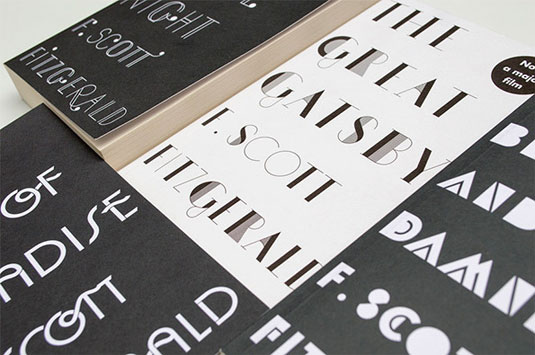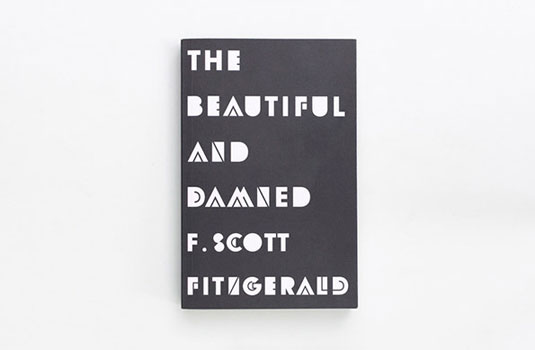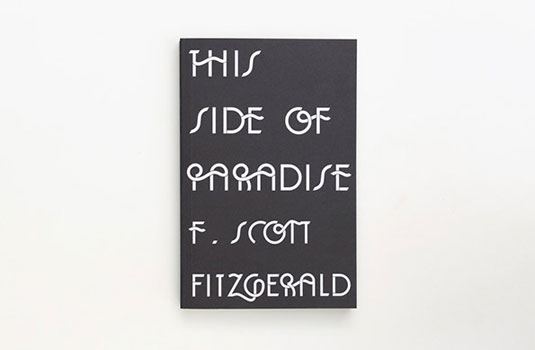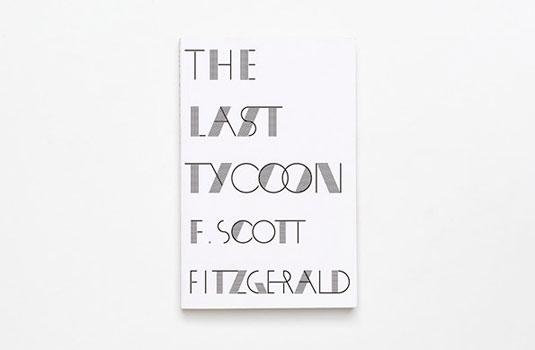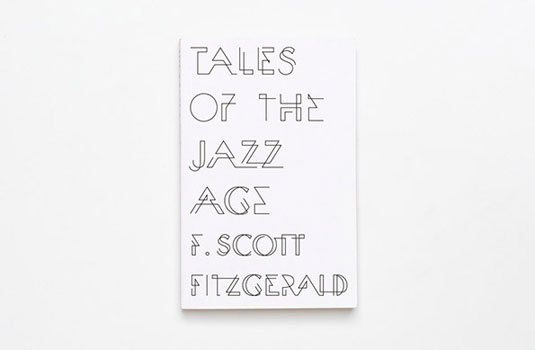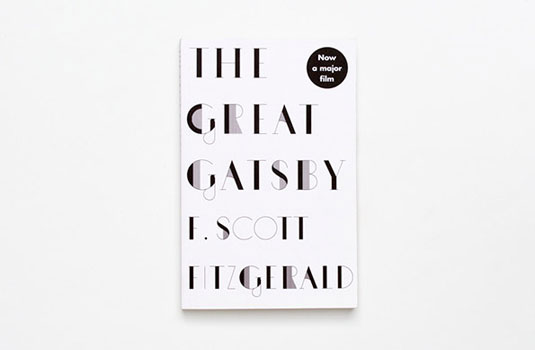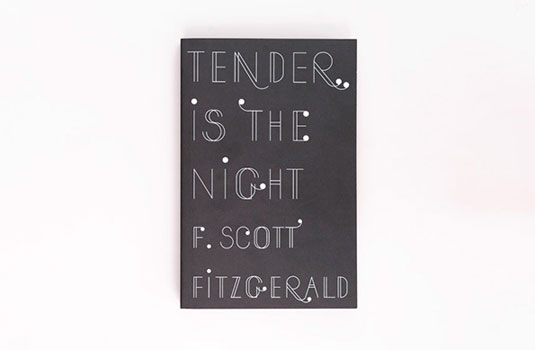
6 jazzy typefaces that will make you want to read Gatsby right now
Check out these redesigns of iconic F. Scott Fitzgerald novels with cool, Jazz Age typography.
Some say that you should never judge a book by its cover - here at Creative Bloq, we beg to differ! Book cover designs are some of the most inspirational works of illustration and graphic design out there, with the likes of Penguin leading the pack.
Here designer Sinem Erkas has redesigned the entire range of classic F. Scott Fitzgerald novels with some exceptional Jazz Age inspired typography. Using a simple monochrome colour scheme, the fonts speak for themselves.
We can't quite decide which one we like the most, as each cover is impeccable in its design delivery. We'd certainly like to see these books on the shelves.